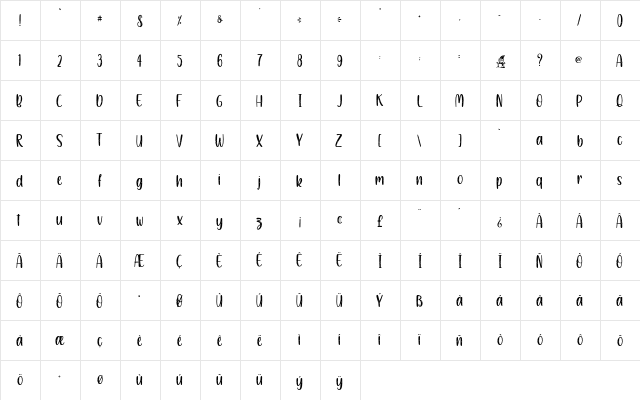
Snowy Christmas - Personal Use Regular
| Foundry | Typhoon Type - Suthi Srisopha |
| Designer | Typhoon Type - Suthi Srisopha |
Design Context for Snowy Christmas - Personal Use Typeface
Snowy Christmas - Personal Use is a composed and adaptable typeface that performs quietly and consistently across a wide range of design contexts.